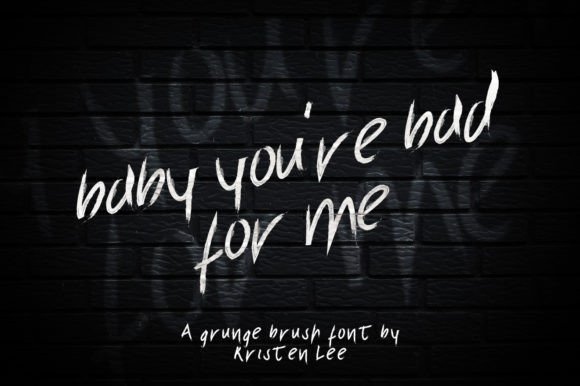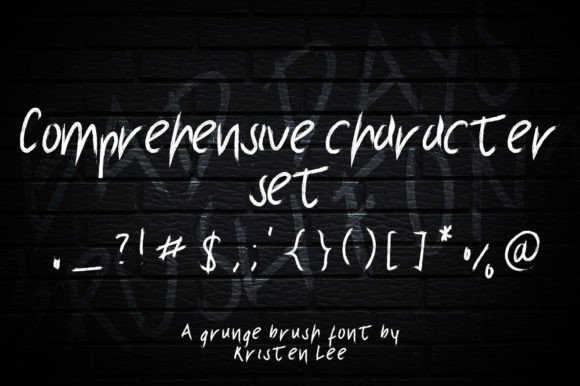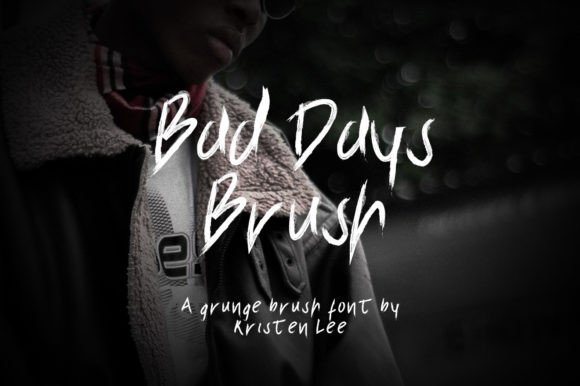
Introducing Bad Days Brush Font: Adding a Touch of Grunge and Emotion to Your Designs
Are you tired of using the same old fonts in your designs? Do you want to add a touch of personality and emotion to your work? Look no further than the Bad Days Brush Font. This textured, gritty, and fun font is perfect for designers and crafters who want to add a unique and creative element to their projects.
What is Bad Days Brush Font?
Bad Days Brush Font is a hand-drawn font that mimics the look and feel of letters painted with a dry brush. It has a grungy, textured quality that gives it a lot of character and personality. The font is perfect for a range of applications, including invites, thumbnails, social media graphics, and more.
Key Features of Bad Days Brush Font
• Textured and Gritty: The font has a rough, textured quality that gives it a lot of character and personality.
• Hand-Drawn: The font is hand-drawn, which means that each letter has a unique and organic feel.
• Dry Brush Effect: The font mimics the look and feel of letters painted with a dry brush, giving it a grungy and artistic feel.
• Emotional and Expressive: The font is perfect for designers who want to add a touch of emotion and personality to their work.
• Versatile: The font is perfect for a range of applications, including invites, thumbnails, social media graphics, and more.
Who is Bad Days Brush Font for?
Bad Days Brush Font is perfect for designers and crafters who want to add a unique and creative element to their work. It’s ideal for:
• Graphic Designers: The font is perfect for graphic designers who want to add a touch of personality and emotion to their work.
• Crafters: The font is perfect for crafters who want to add a personal touch to their handmade projects.
• Social Media Influencers: The font is perfect for social media influencers who want to add a unique and creative element to their social media graphics.
• Small Business Owners: The font is perfect for small business owners who want to add a personal touch to their branding and marketing materials.
How to Use Bad Days Brush Font
Bad Days Brush Font is easy to use and can be incorporated into a range of design projects. Here are a few ideas:
• Invites: Use the font to create unique and personalized invites for parties, events, and more.
• Thumbnails: Use the font to create eye-catching thumbnails for YouTube videos, blog posts, and more.
• Social Media Graphics: Use the font to create social media graphics that stand out from the crowd.
• Branding and Marketing Materials: Use the font to add a personal touch to branding and marketing materials, such as business cards, brochures, and more.
Tips and Tricks for Getting the Most out of Bad Days Brush Font
Here are a few tips and tricks for getting the most out of Bad Days Brush Font:
• Experiment with Different Colors: The font looks great in a range of colors, so don’t be afraid to experiment and find the perfect color for your design.
• Play with Texture: The font has a textured quality, so play with texture to add depth and interest to your design.
• Use it with Other Fonts: The font pairs well with other fonts, so don’t be afraid to use it in combination with other fonts to create a unique and interesting design.
Bad Days Brush Font is a unique and creative font that’s perfect for designers and crafters who want to add a touch of personality and emotion to their work. With its textured, gritty quality and hand-drawn feel, it’s perfect for a range of applications, including invites, thumbnails, social media graphics, and more. So why not give it a try and see how it can add a touch of grunge and emotion to your designs?